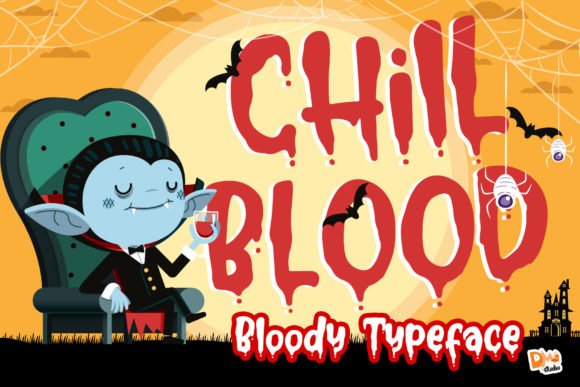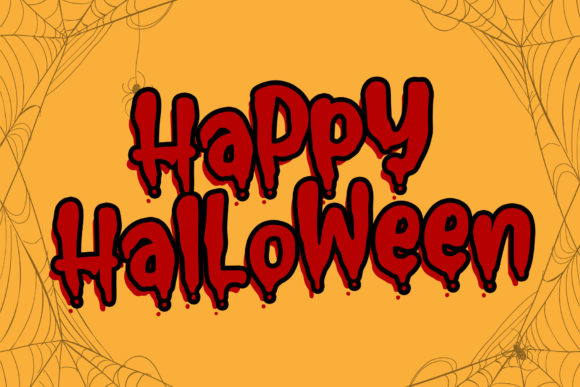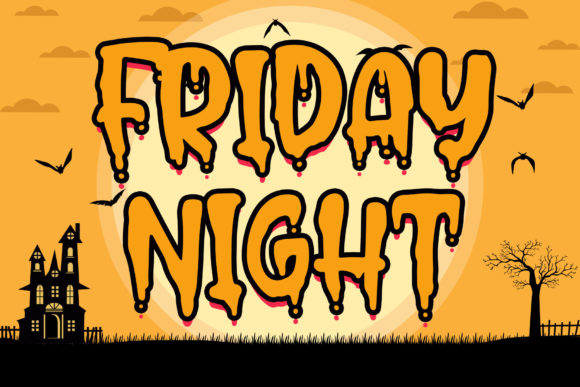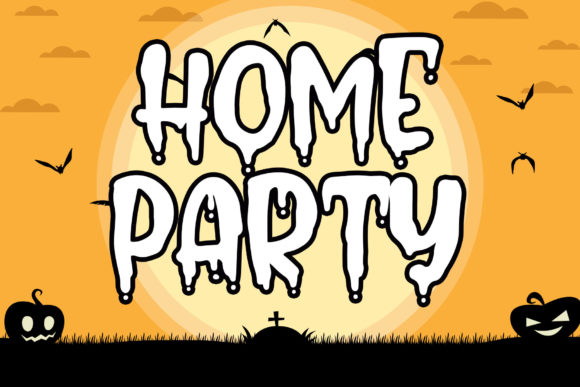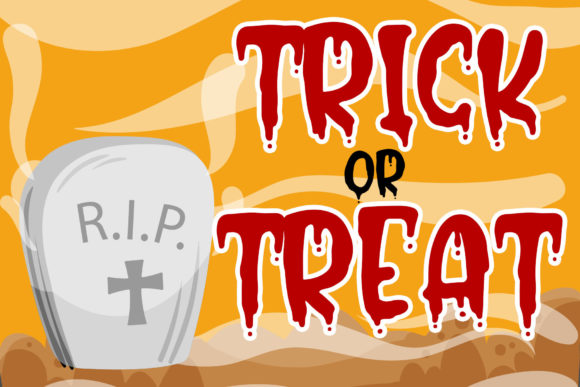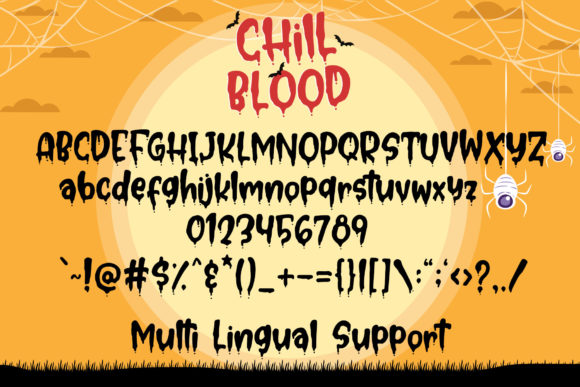
Discover the Perfect Blend of Quirkiness and Style
Have you ever been working on a project and suddenly, the perfect font pops into your mind, elevating the entire design to the next level? For many designers, this moment is the result of endless hours of experimentation and a keen eye for detail. It’s in these moments that we find our inspiration, and it’s exactly what led us to discover the enchanting Chill Blood Font.
This bold and unique display font is perfect for designers looking to add a touch of quirkiness to their projects. Whether you’re working on a music festival poster, a fashion brand’s logo, or a quirky advertisement, Chill Blood Font is sure to make a statement. Its versatility and adaptability make it a valuable asset for any designer looking to push the boundaries of creativity.
Chill Blood Font Key Features
- Unique Characteristics: The font features a unique blend of modern and distressed elements, giving it a distinctive, edgy look that is perfect for creating bold and eye-catching designs.
- Font Style: The font comes in regular and bold weights, allowing designers to create a range of visual effects and emphasize key messages in their designs.
Chill Blood Font Review
Overall, I think the Chill Blood Font has a unique vibe to it. ✨ The use of distressed textures and bold lettering gives it a cool, edgy feel that could work well for certain projects.
Here are some things that I think the font does well:
- ✨ It’s perfect for creating a bold, eye-catching headline or title.
- ✨ The distressed textures add a lot of character to the font and make it stand out.
- ✨ It’s great for use in graphic design, especially in posters, flyers, and other promotional materials.
- ⚠️ The font may be difficult to read in smaller sizes or when used in large blocks of text.
- ⚠️ The distressed textures may not be suitable for all types of projects or audiences.
- ⚠️ Some users may find the font too bold or overwhelming.
Overall, I think the Chill Blood Font is a great choice for designers who want to add a bit of edge to their projects. However, it’s not suitable for all types of projects or audiences, and designers should use it judiciously.
The Chill Blood Font is ideal for creative and artistic projects, such as:
- Designing album covers and posters
- Creating social media graphics and advertisements
- Developing branding and logos